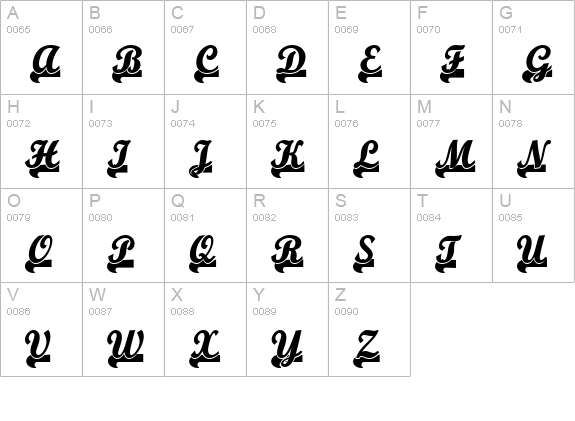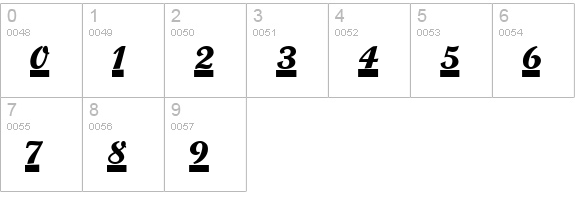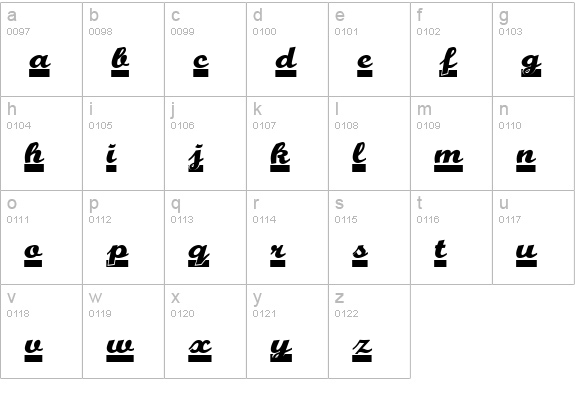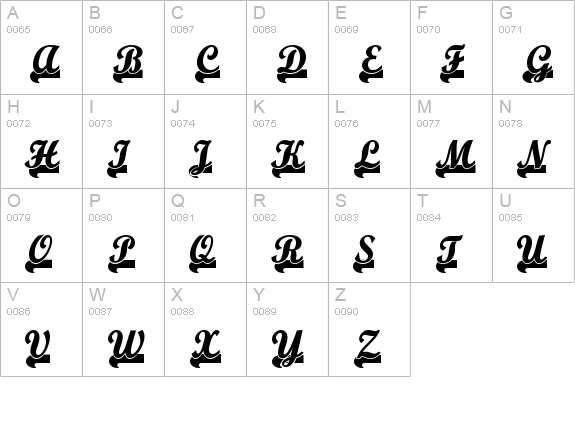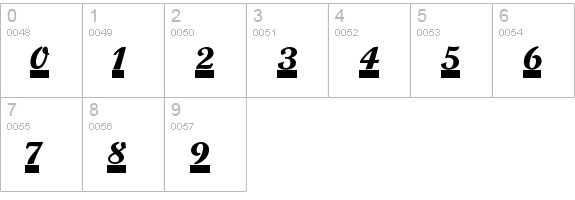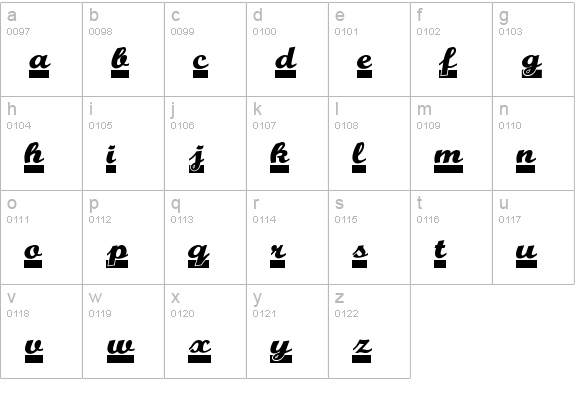
TeamSpirit Font Details
Introducing TeamSpirit, a captivatingly versatile font that embodies the essence of teamwork and creativity. With its sleek and modern design, TeamSpirit effortlessly combines professionalism with a touch of playfulness, making it the perfect choice for any project. This remarkable font boasts a wide range of weights and styles, ensuring that it can adapt to various design needs. Whether you're designing a logo for a startup, creating eye-catching headlines, or crafting a visually stunning website, TeamSpirit has got you covered. But what truly sets TeamSpirit apart is its availability as a free download at FontsMarket.com. That's right, this exceptional font can be accessed without any cost, making it a valuable asset for both professional designers and aspiring creatives alike. With TeamSpirit, you'll have the freedom to explore your design ideas without any limitations. Its clean lines and well-balanced proportions create a harmonious visual experience, while its extensive character set ensures that you have all the tools necessary to bring your vision to life. So why wait? Download TeamSpirit today from FontsMarket.com and unleash your creativity with this extraordinary font. With its unique blend of elegance and versatility, TeamSpirit is bound to become your go-to choice for all your design projects. Embrace the spirit of teamwork and let TeamSpirit elevate your creations to new heights.